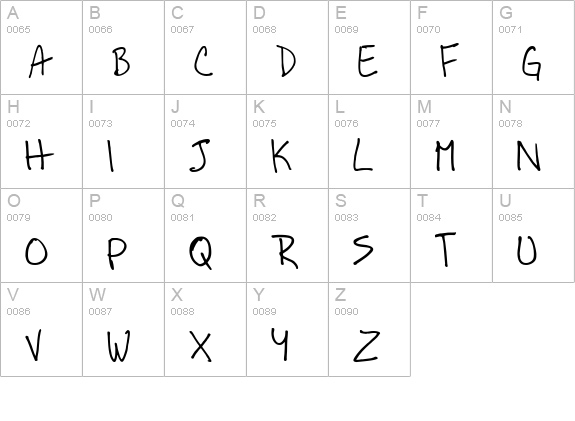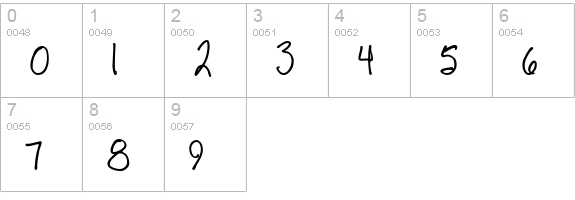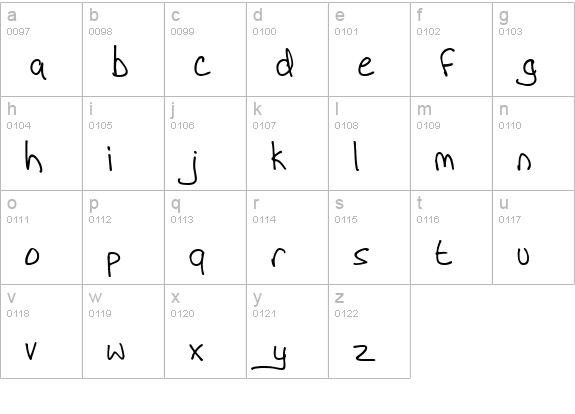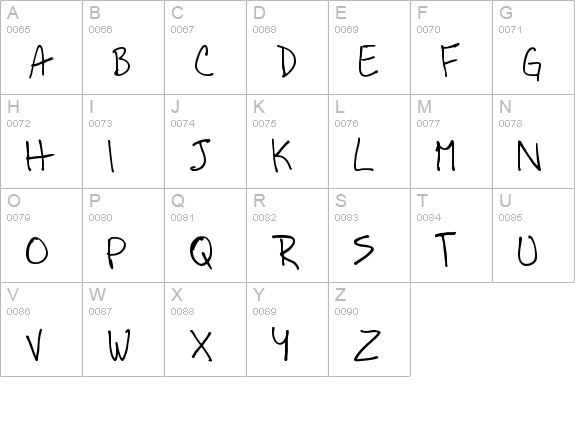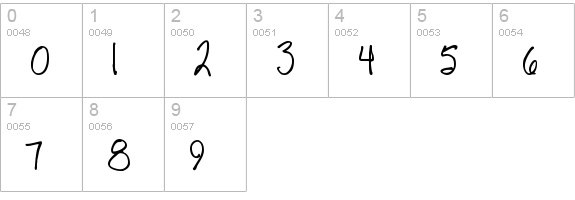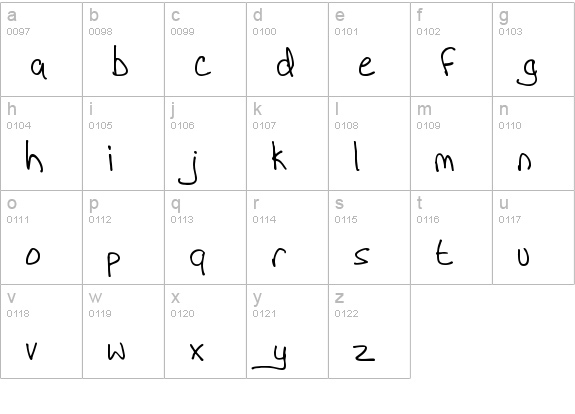
BoBsFrAnTiC True Type Font Details
Introducing BoBsFrAnTiC True Type font, a whimsical and playful typeface that exudes a sense of fun and creativity. This unique font features quirky and irregular letterforms that add a touch of charm to any design project. BoBsFrAnTiC is perfect for adding a sense of lightheartedness to invitations, posters, social media graphics, and more. Best of all, BoBsFrAnTiC True Type font is completely free to download at FontsMarket.com. Whether you're a designer looking to add a touch of whimsy to your work or simply want to inject some fun into your personal projects, BoBsFrAnTiC is the perfect choice. Download this delightful font today and let your creativity run wild!